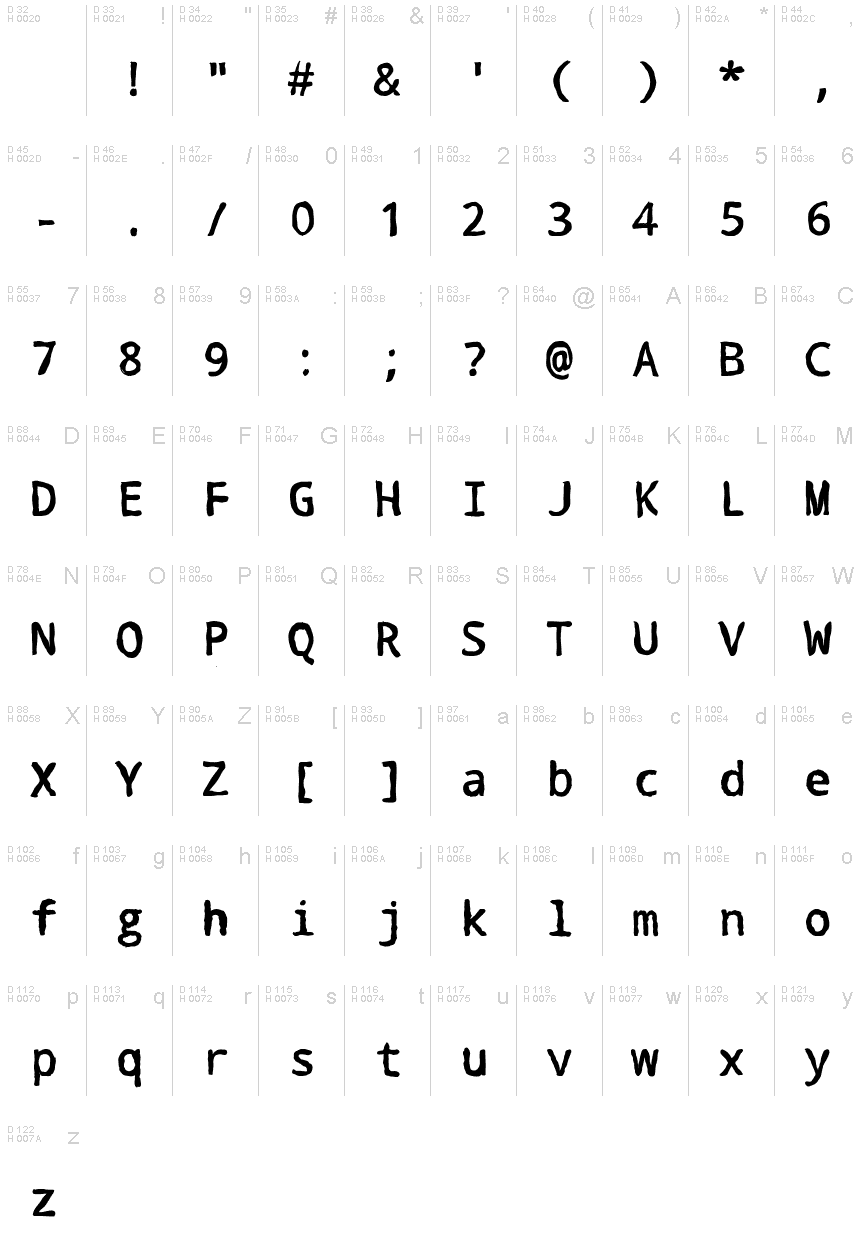
Swiftfreewill
Swiftfreewill, the captivating creation by Swiftfree Font, is a remarkable display font that exudes a sense of rebellion and audacity. Its eroded style adds a touch of rawness and unpredictability to any design project. With its semi-bold weight, this versatile typeface is perfect for various ventures that demand an edgy aesthetic. From album covers and skateboarding brands to streetwear logos and vintage posters, Swiftfreewill injects an unmistakable rebellious spirit into every design it graces. Unleash your imagination and let this font become the bold statement your project craves.